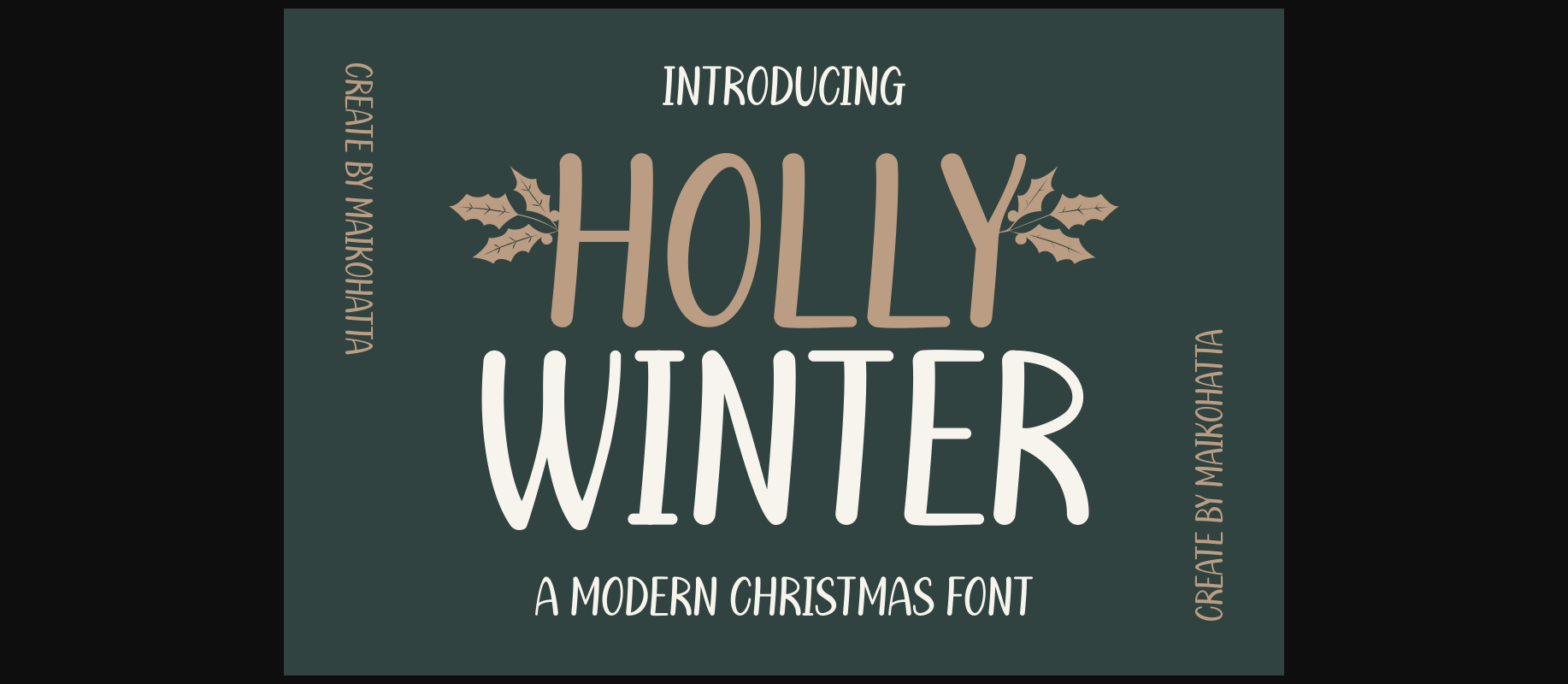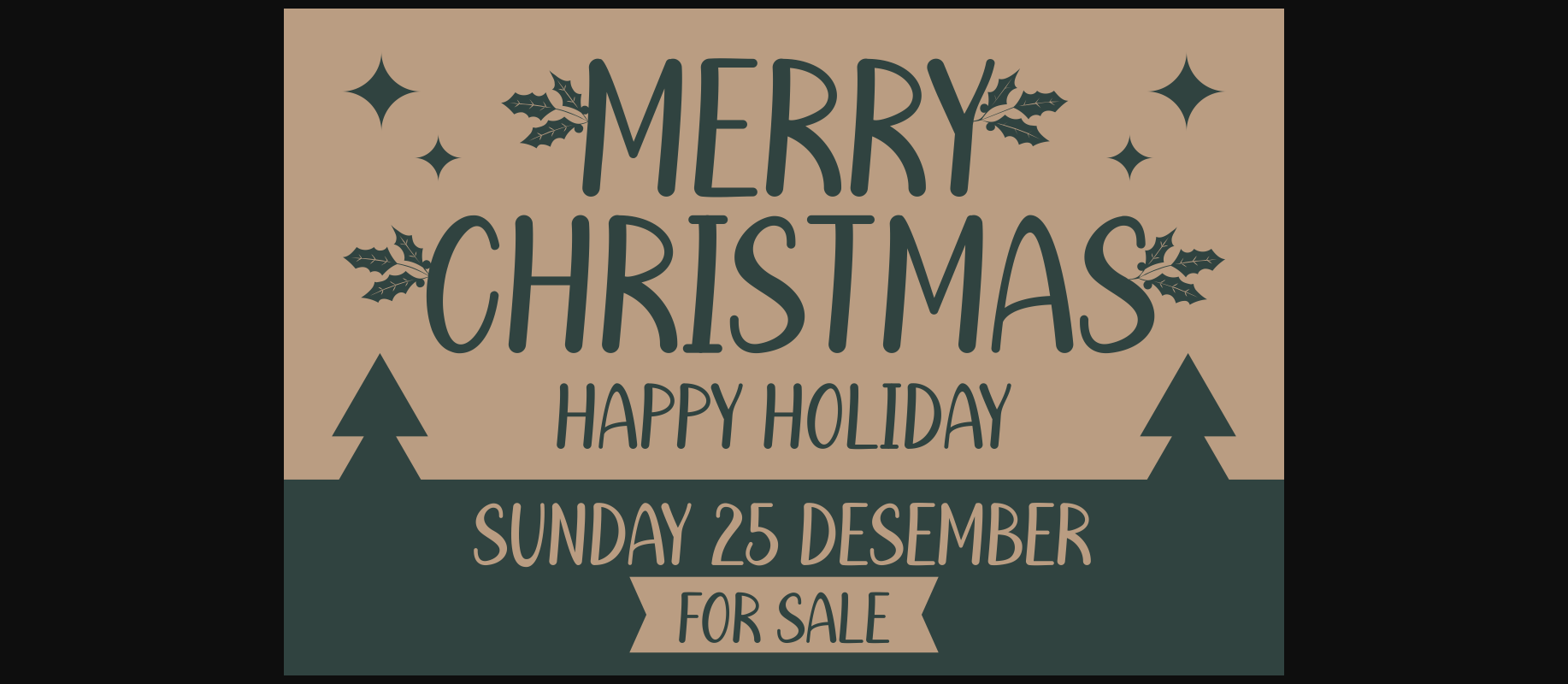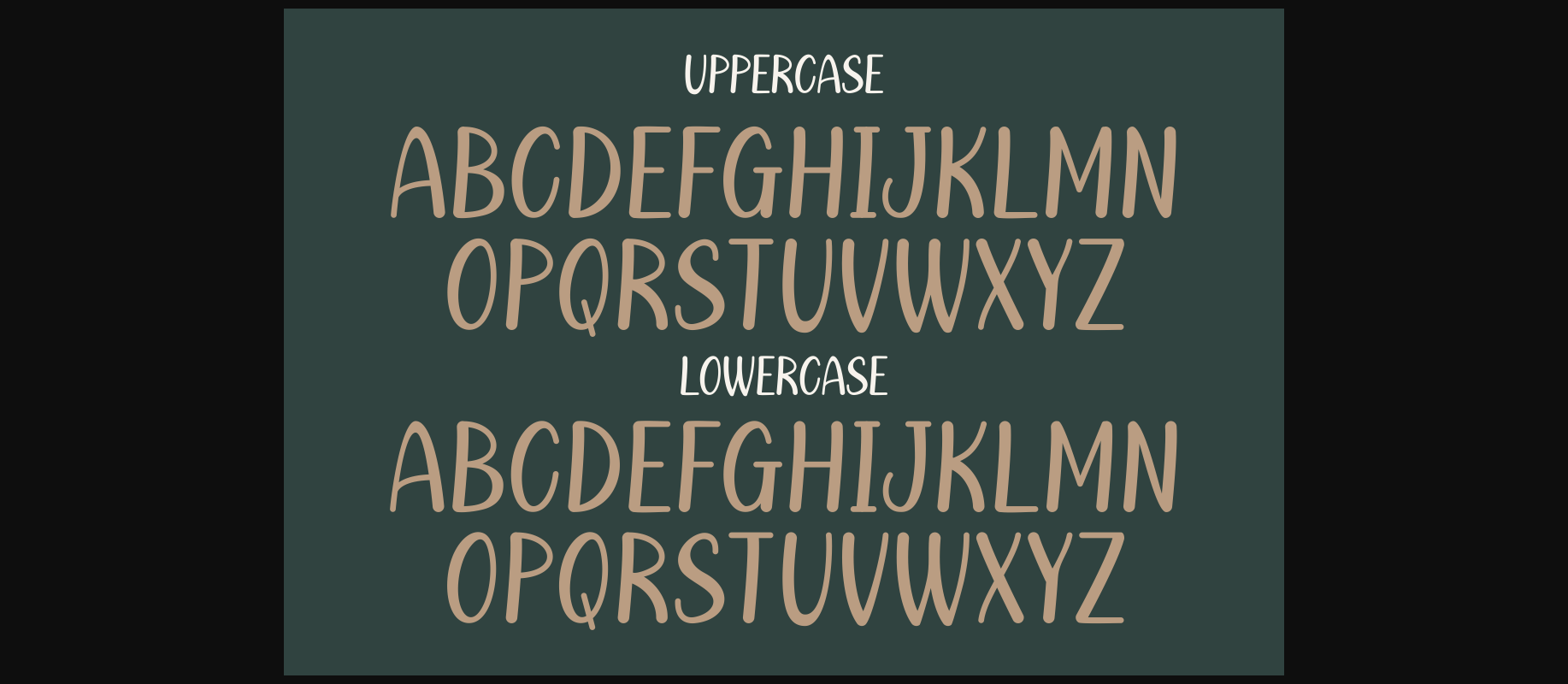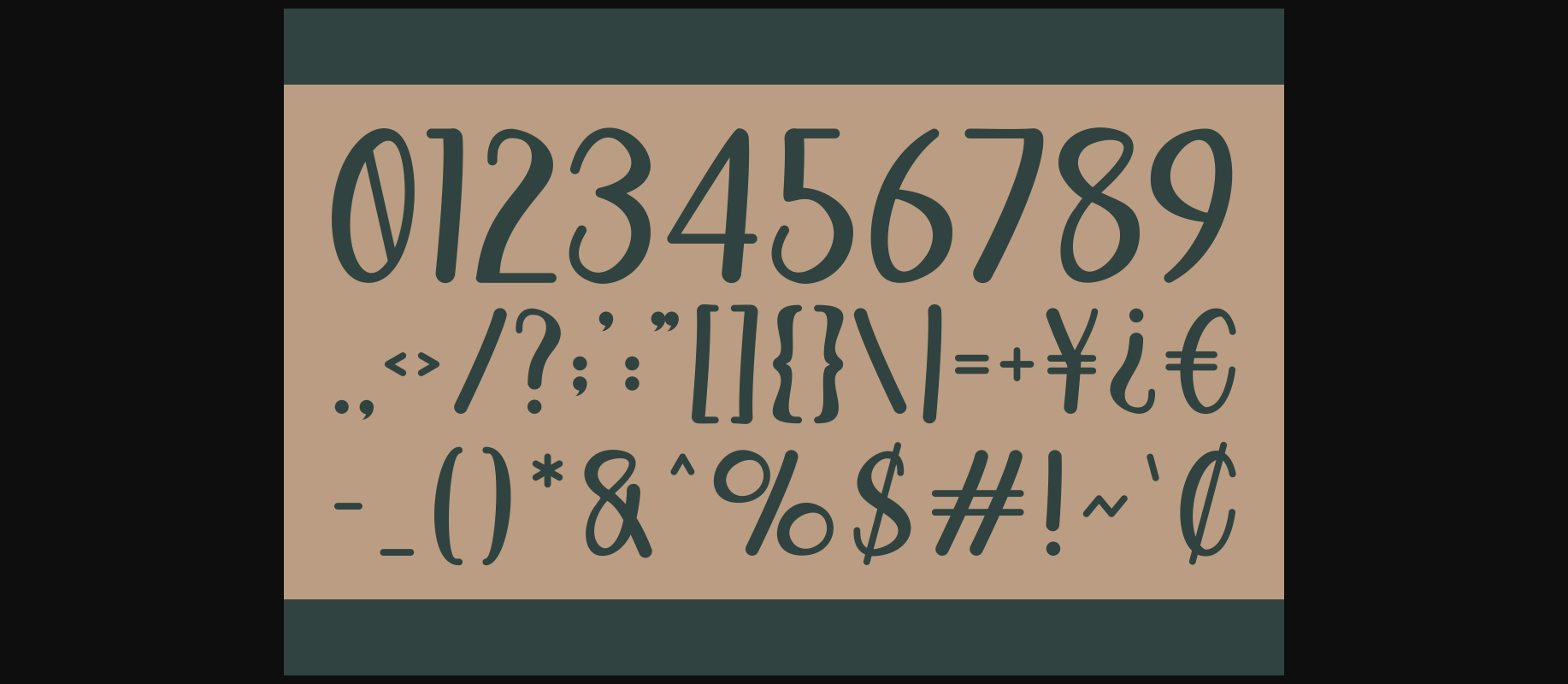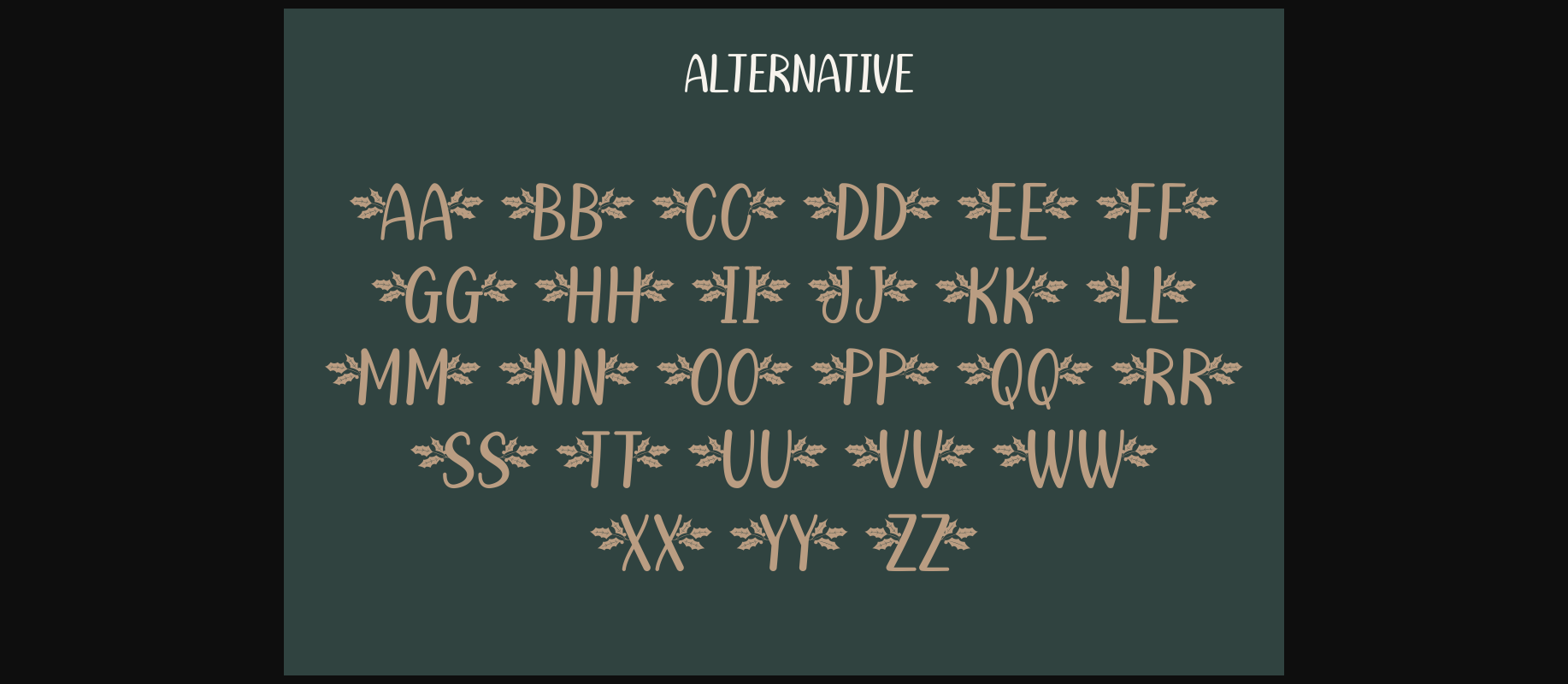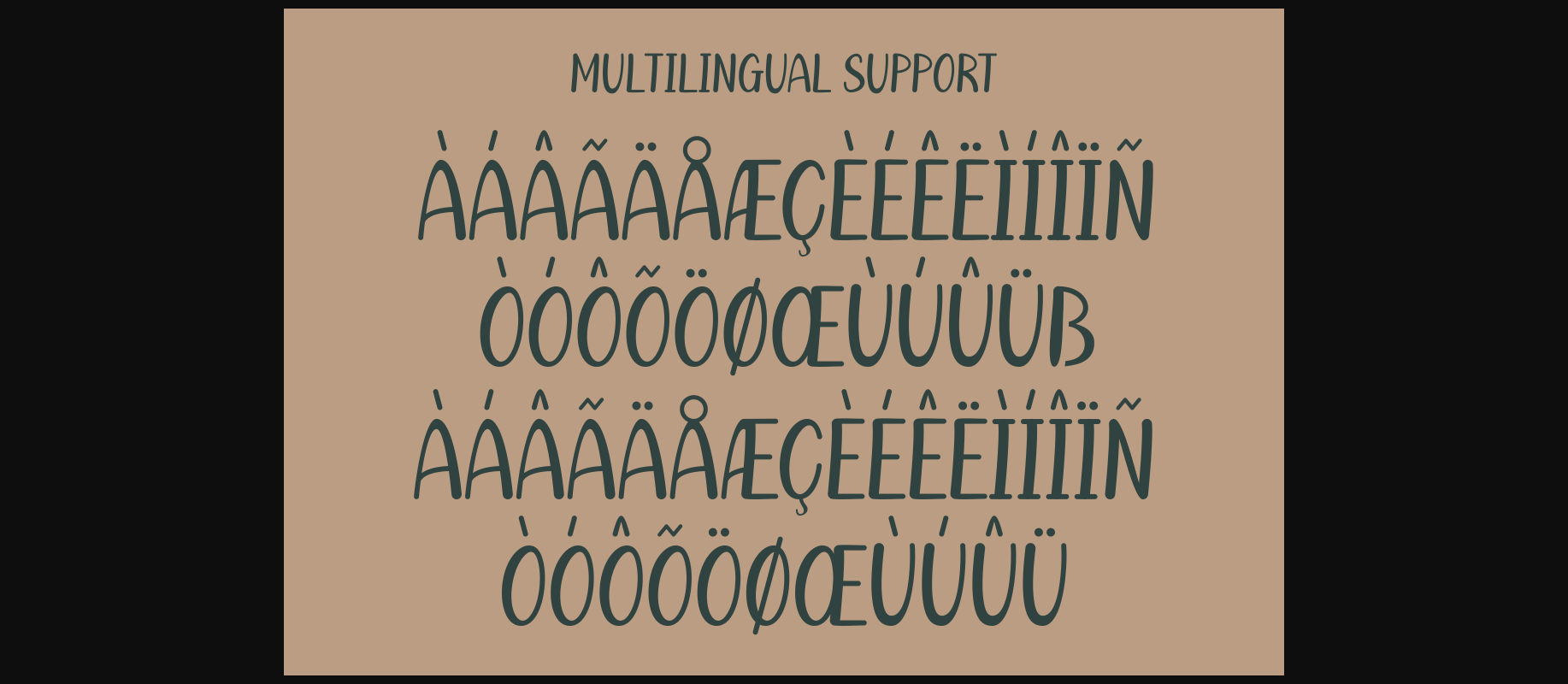
Holly Winter Font
About Holly Winter Font
This font is specifically designed to create a Christmas atmosphere and mood. It is often used in graphic design, greeting cards, posters, and various other visual elements related to the celebration of Christmas.